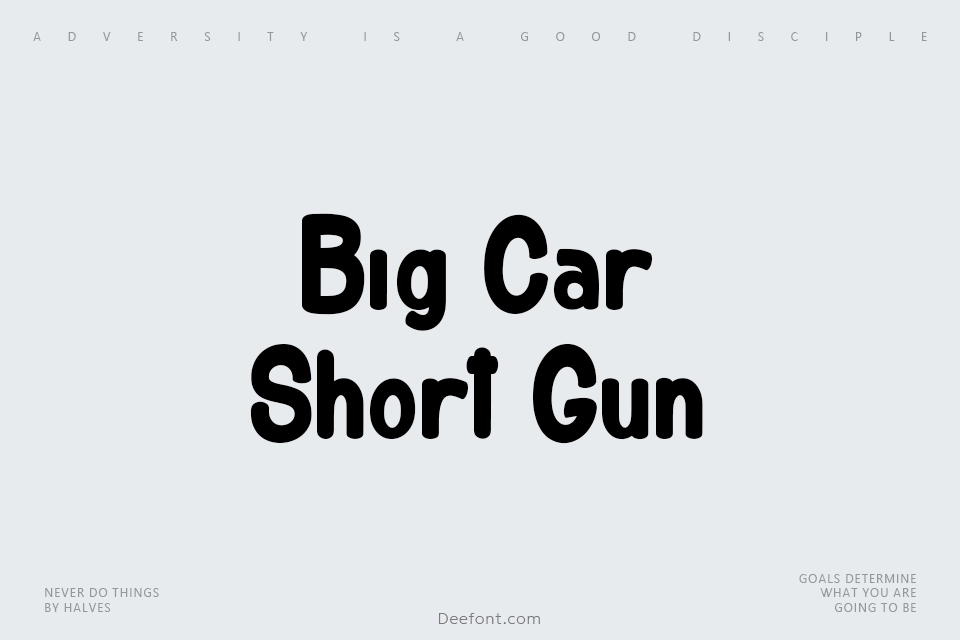
Big Car Short Gun Font
BIG CAR Short Gun is a playful and approachable display typeface featuring bold, rounded characters. Designed by dcoxy, this creative font combines a comic style with contemporary charm, making it ideal for eye-catching headlines, poster designs, and creative projects. The typeface offers a friendly personality perfect for designs that need personality and visual impact. With its distinctive character forms and 211 glyphs, BIG CAR Short Gun brings energy and creativity to any typography project.
Designed by:Greg Medina (dcoxy)